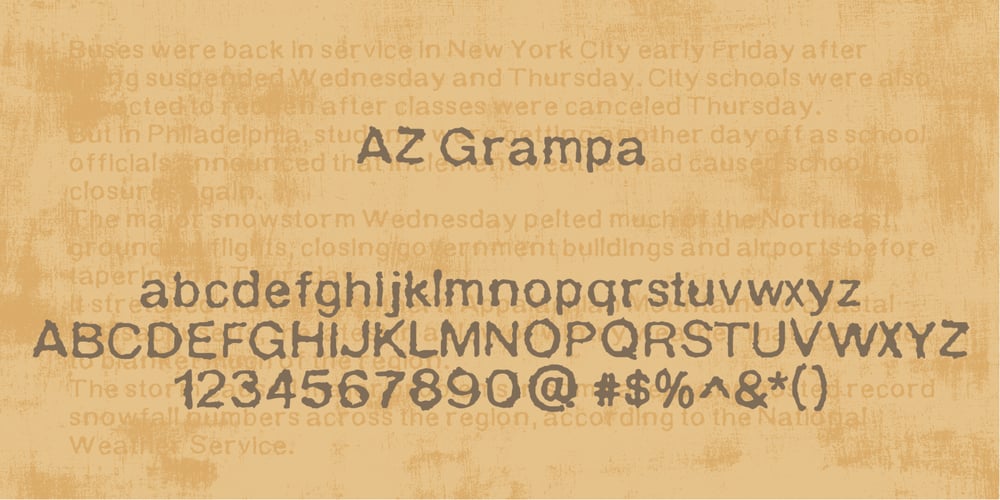
AZ Grampa
AZ Grampa font
AZ Grampa Font Family was designed by published by Artist of Design. AZ Grampa contains 1 styles and family package options. AZ Grampa font was inspired from old content type on vintage tins. This font utilizes an “old look” to the line work which is designed to have a “worn feel” to it. Ideal for use as content text in you design.